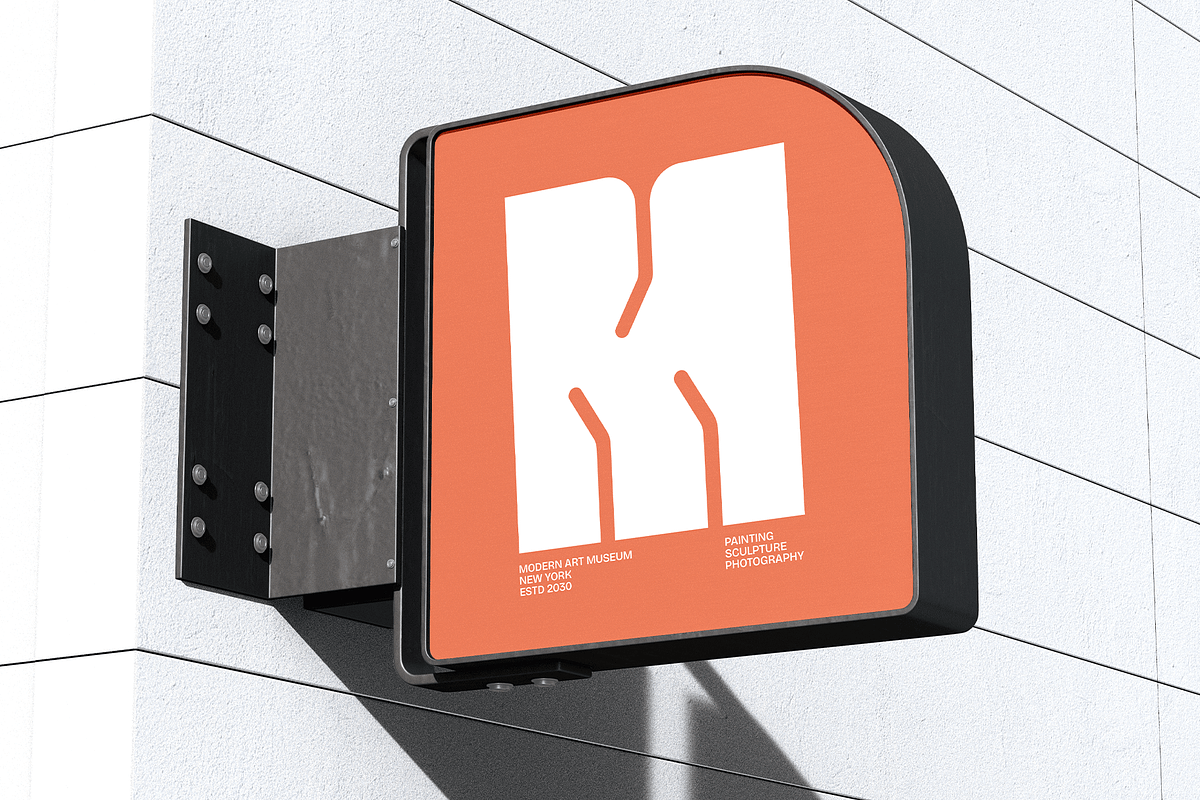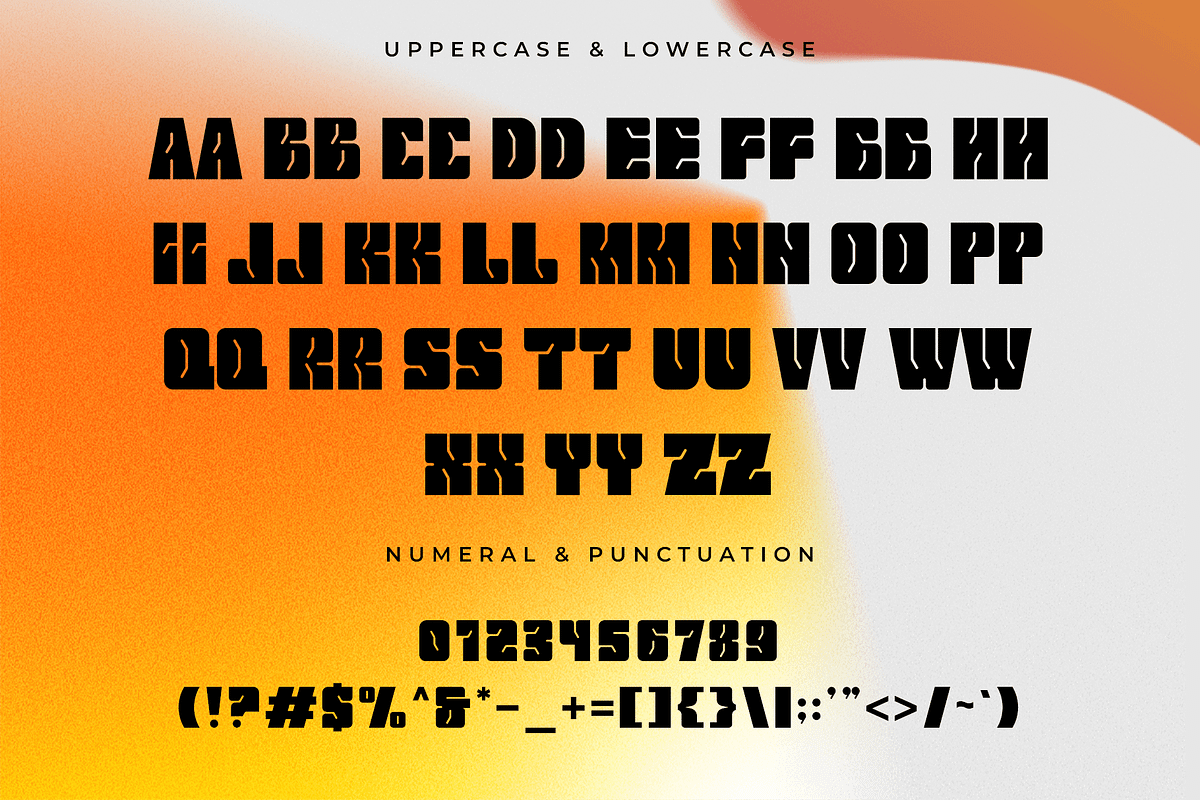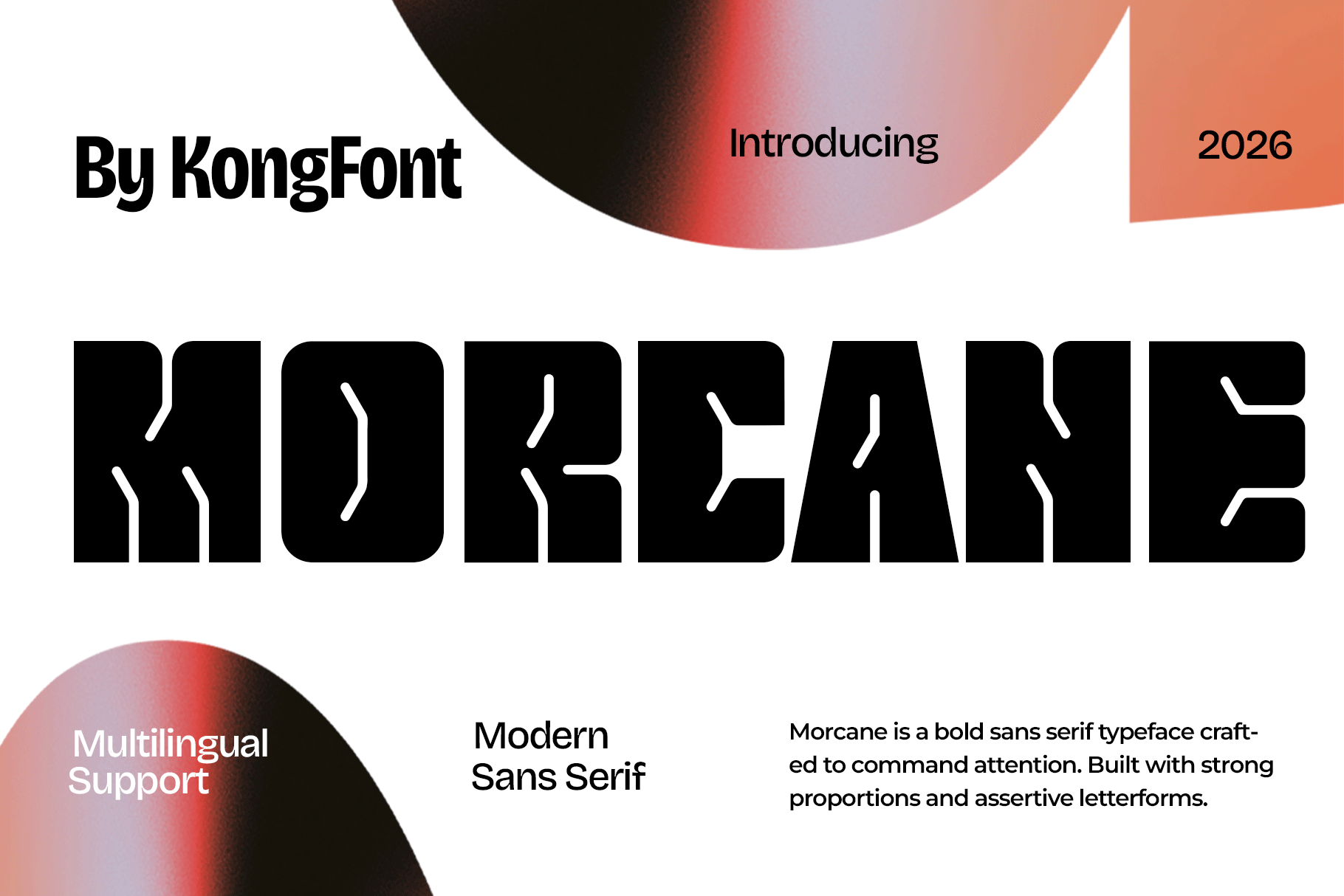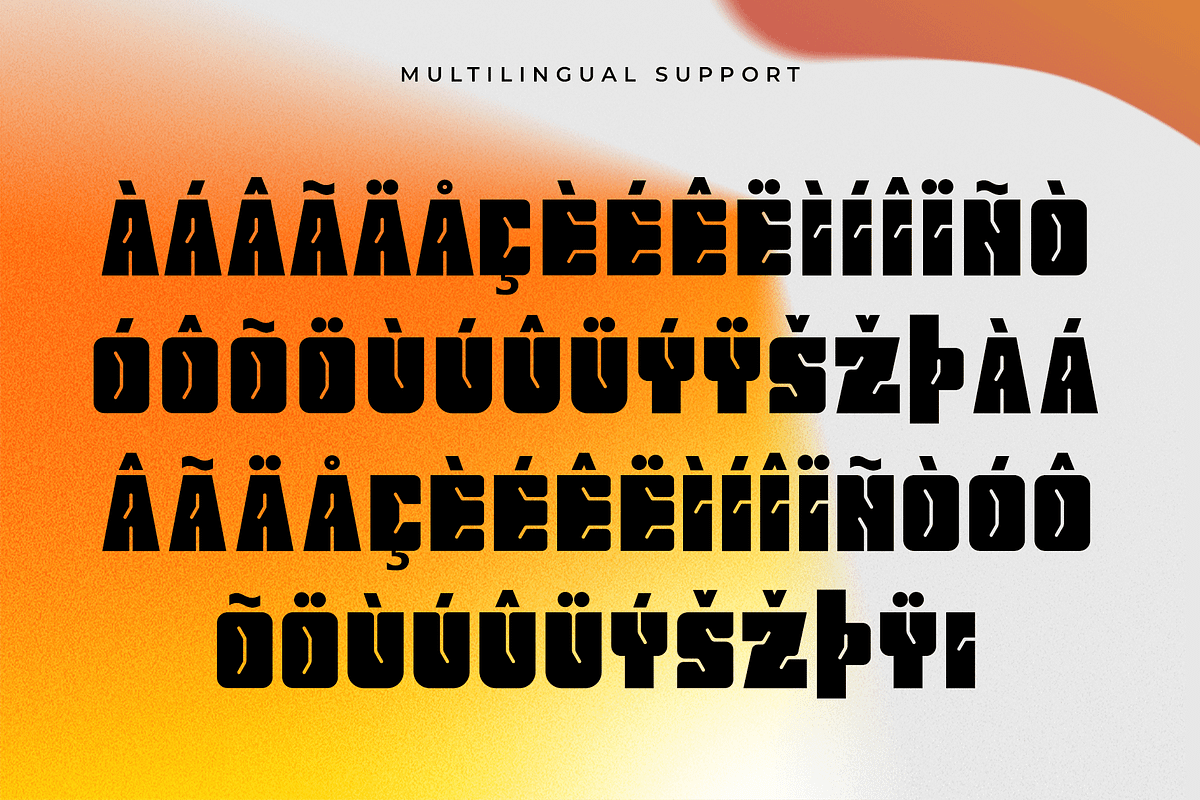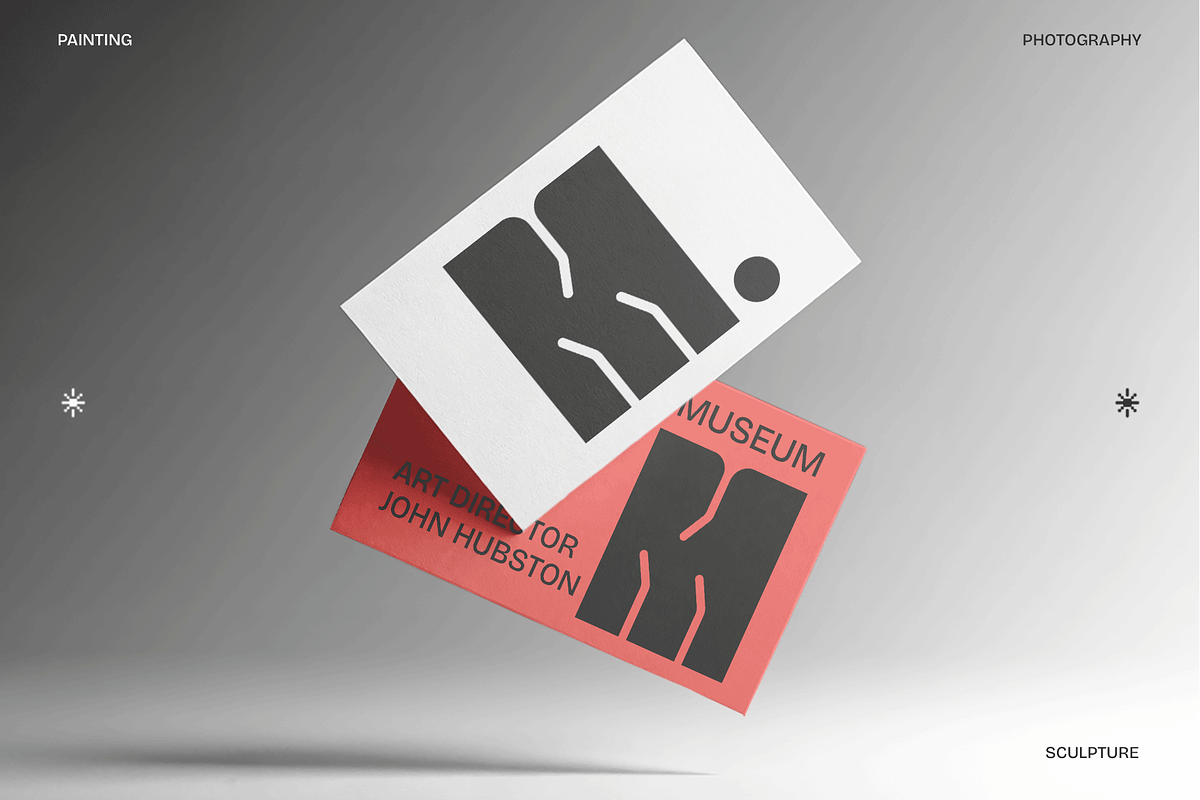
Morcane - Modern Sans Serif Font
Introducing Morcane, a modern sans serif font designed to deliver clarity, confidence, and contemporary versatility. With its clean lines, balanced proportions, and subtle modern details, Morcane offers a professional yet stylish typographic solution for a wide range of creative and commercial projects.
Morcane includes uppercase and lowercase letters, numerals, punctuation, and multilingual support, ensuring flexibility for global use across print and digital platforms. Whether you're building a modern brand identity, designing clean layouts, or creating polished marketing materials, Morcane brings reliability and refined simplicity to every composition.